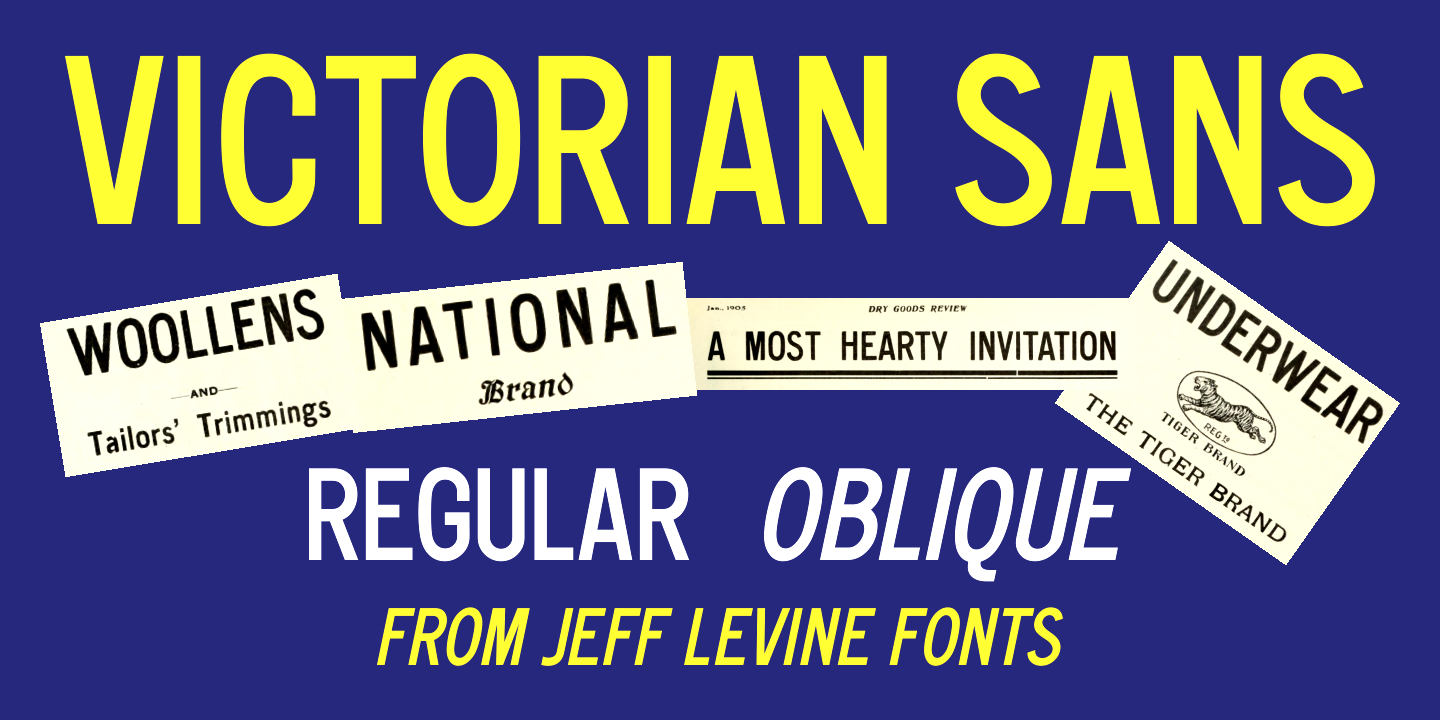
Victorian Sans JNL
Designed by Jeff Levine, Victorian Sans JNL is a display sans font family. This typeface has two styles and was published by Jeff Levine Fonts.
Victorian Sans JNL is available in both regular and oblique versions and is based on one of the numerous versions of Philadelphia Lining Gothic; originally released around 1895 byMacKellar, Smiths & Jordan.
In the days of letterpress, a lining type face had it’s numerals line up with the cap height and base line of the design.  Many other designs of the time used ‘old style’ numerals which would extend below the base line.